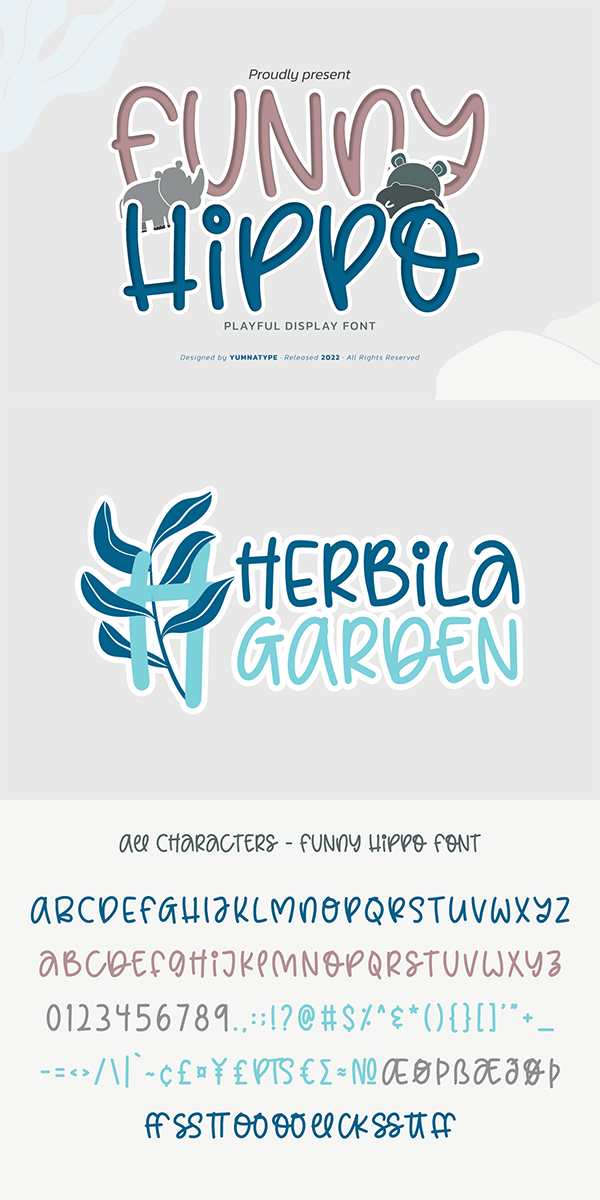
Funny Hippo Font
About Funny Hippo
Funny Hippo is a stylish display font in a freedom concept to show unique, friendly, fun expressions with smooth, round, curvy accents. The characteristics are the dynamic lines and angles and various letter proportions. In addition, Funny Hippo gives you an extra bonus called the clipart. Use this font for big text sizes for a legibility reason and enjoy the available features as well.
Funny Hippo fits for various design projects, such as posters, banners, logos, magazine covers, quotes, headings, printed products, merchandise, social media, etc. Find out more ways to use this font by taking a look at the font preview.